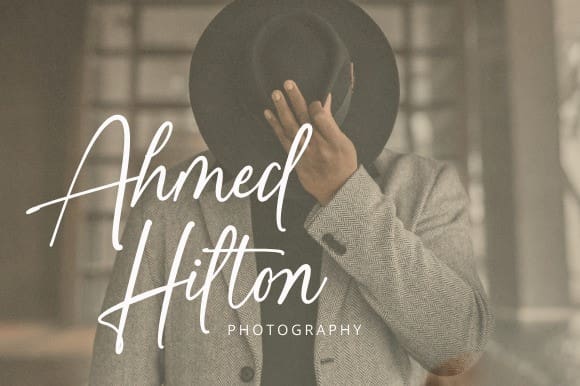
Perfect Ausmar Font
Perfect Ausmar Font is a font that exudes perfection and elegance. Crafted with stunning detail, every accent and line in this font exudes incredible delicacy and precision. With its unique character and ability to adapt to a variety of design contexts, Perfect Ausmar brings a touch of professionalism. The beauty of each letter will make your design work shine. Perfect your creative projects with the beauty of Perfect Ausmar.